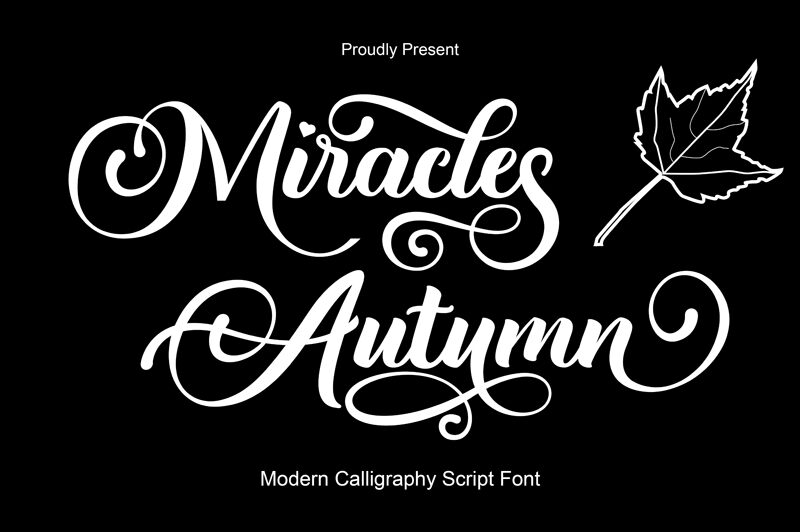
Miracles Autumn
Miracles Autumn font by Miftah Arzaq is a calligraphy typeface with an elegant and flowing style. Its ornate and expressive characters carry a classic look with romantic and decorative strokes that add charm to each design. This free calligraphy font allows the most exquisit details for users who believe that beauty is in the details.
Use Miracles Autumn for gift cards, wish cards, cover designs, logotypes, branding projects, packages, magazines, fashion related projects etc. Or go subtle when you feature this font in small booklets and guests-menues for special occasions like weddings or charity events.